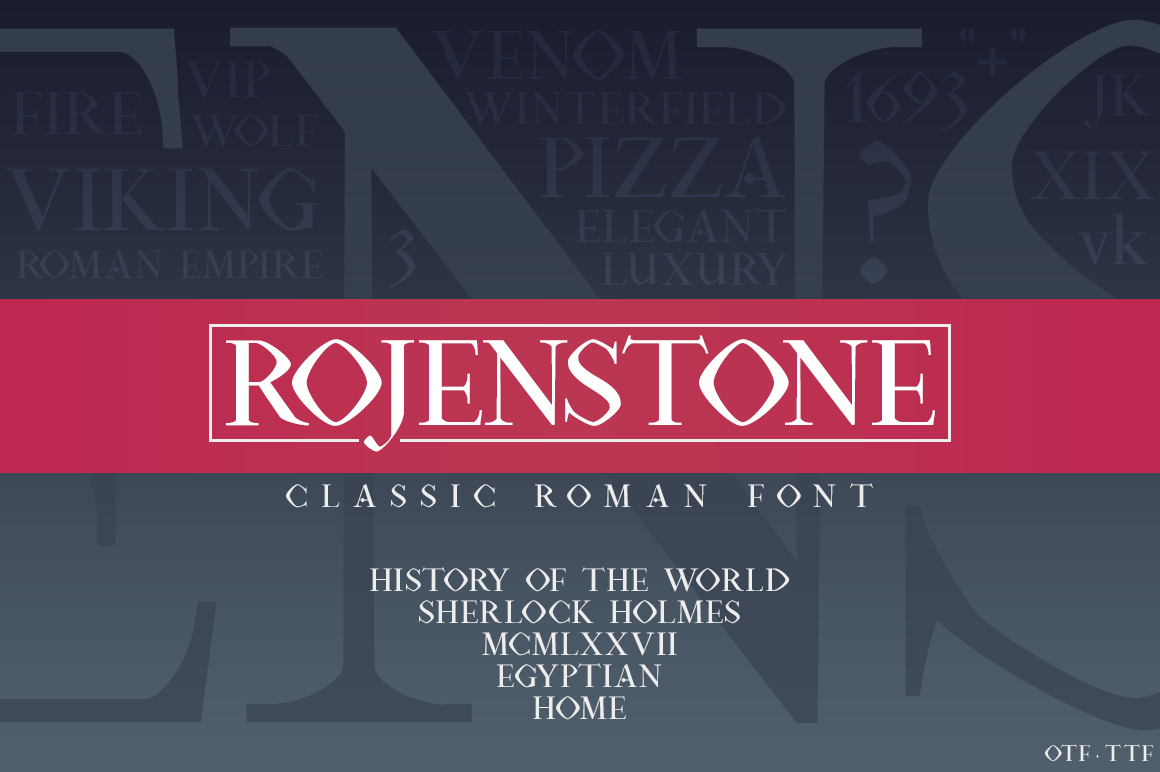
Rojenstone Font
New Rojenstone Display Font - based on Classic Roman serif style (Roman type was modelled from a European scribal manuscript style of the 15th century, based on the pairing of inscriptional capitals used in ancient Rome with Carolingian minuscules developed in the Holy Roman Empire). Work for both vintage and modern luxury projects, has some great capitals.
Features: Capitals, Numerals and Punctuation.